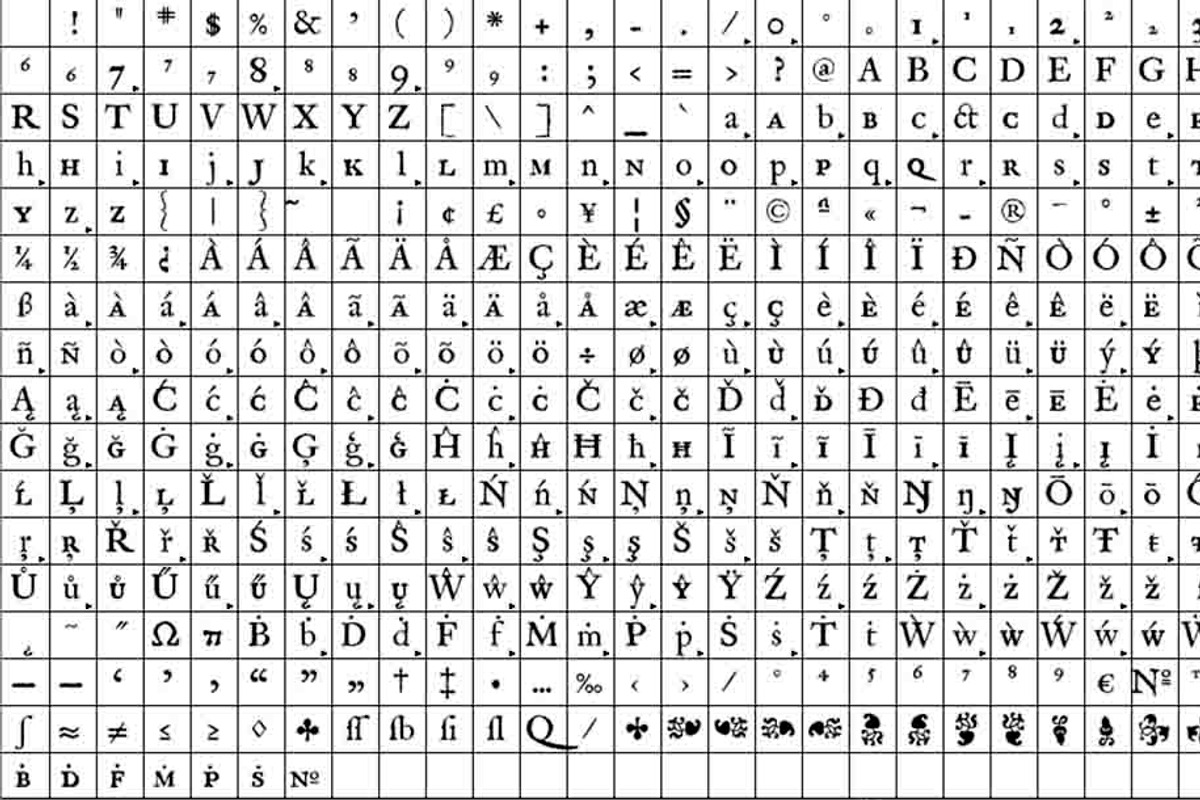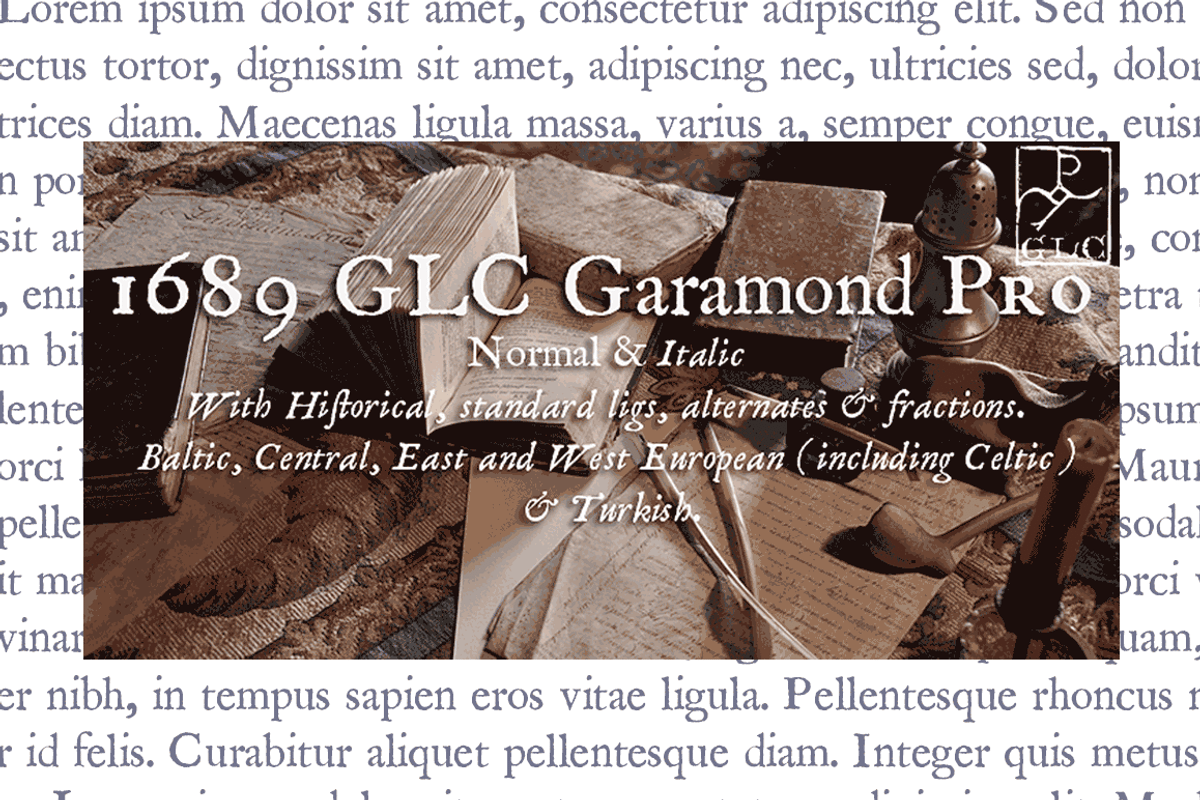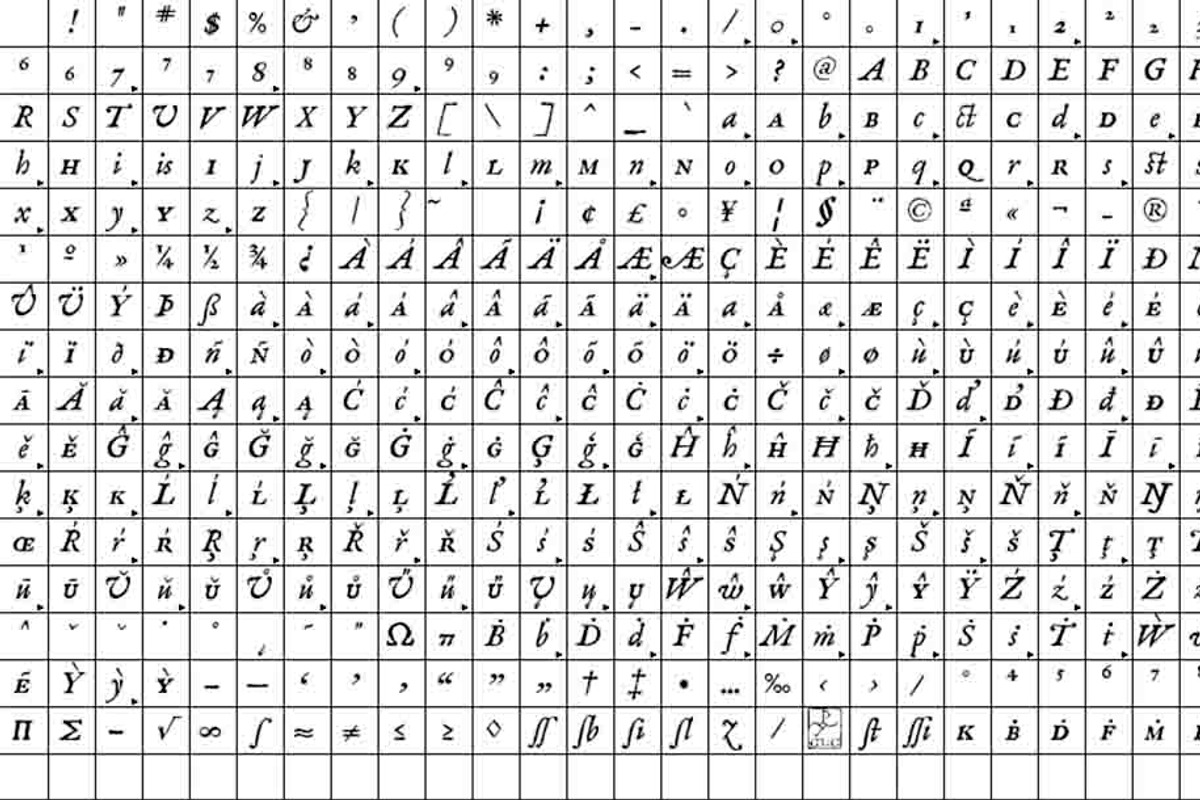
1689 GLC Garamond Pro Set
This family was created inspired from a Garamond pattern set of fonts used for an edition of "Remarques critiques sur les oeuvres d'Horace" by "D.A.E.P." published in Paris in 1689 by two different booksellers : Deny Thierry and Claude Barbin. We can see some differences with our "pure" Garamond (look at our 1592 GLC Garamond), particularly in lower cases of the Normal style and upper cases of the Italic. Unfortunately, we don't know the name of the punch cuter, no more than the printer's one. This complete set is containing small caps, fractions until 1999/1999, historical and standard ligatures, and all fleurons contained in the edition (Normal style only). The alphabet is covering all Western, Eastern and Central European languages (including Celtic diacritics) and Turkish.